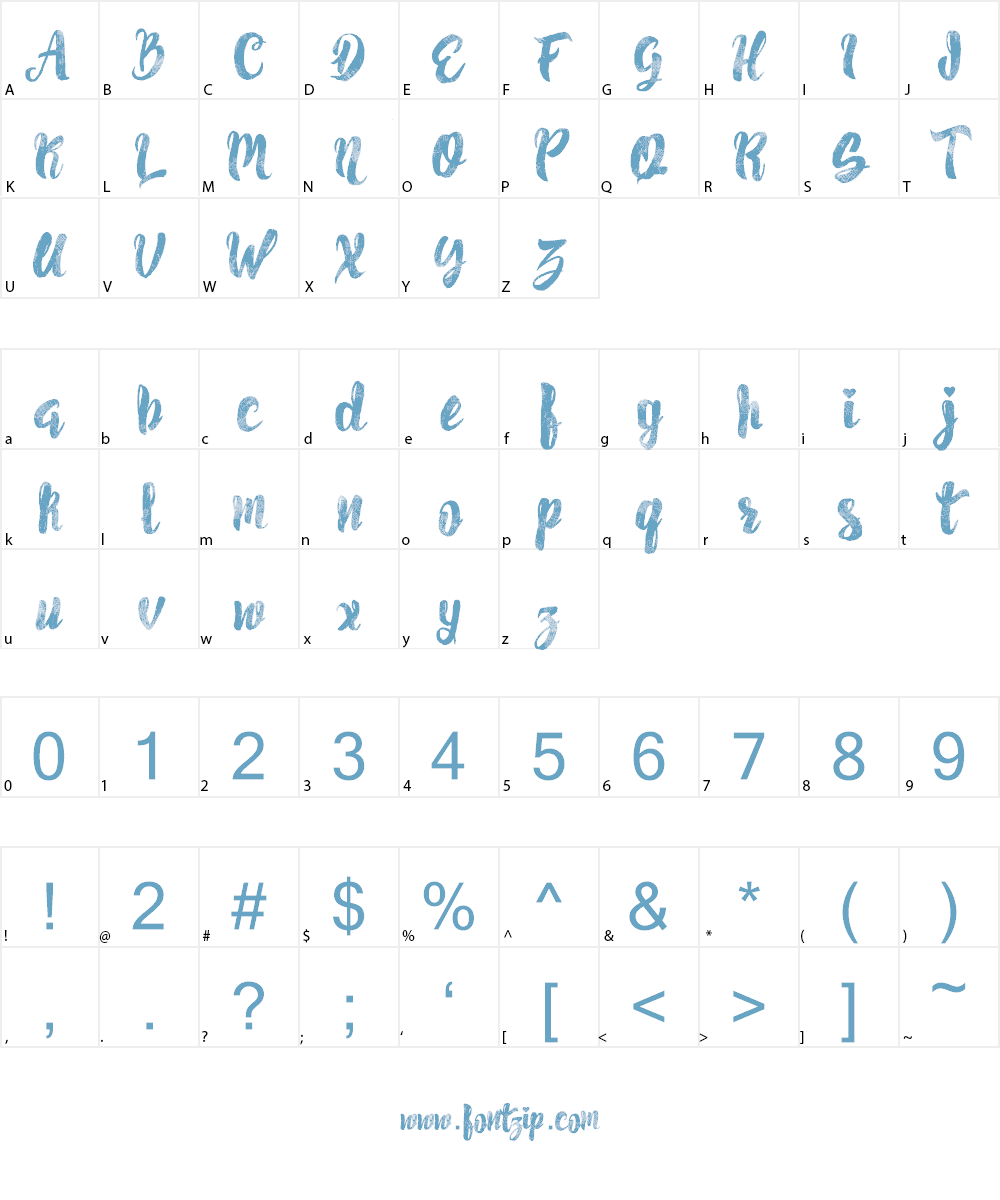
-Pancake Syrup-
Handwritten font with Textured ready.. Demo Version. Please visit http://knackpack.studio for more details about this font. Thank you!